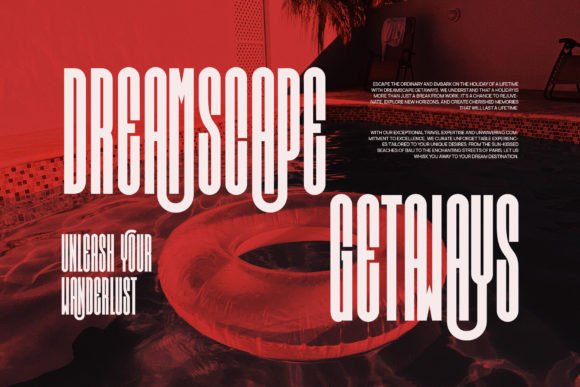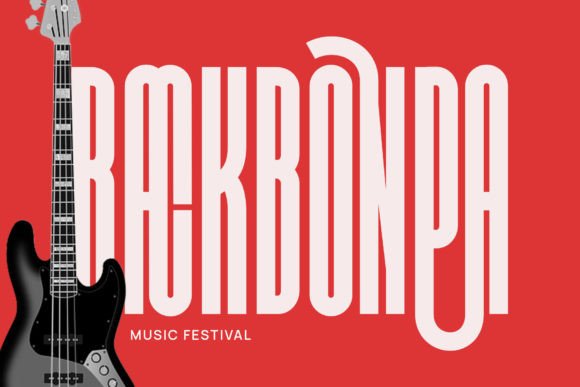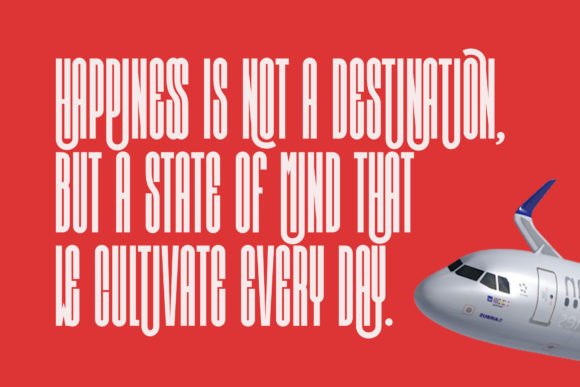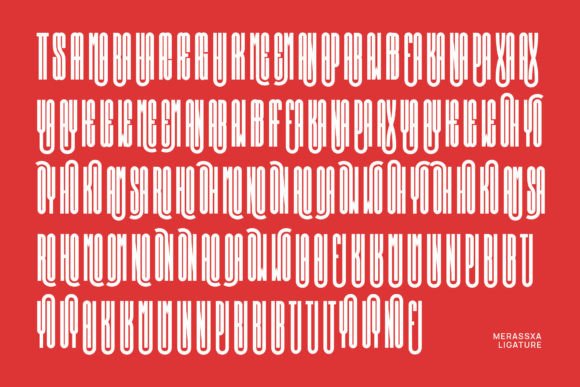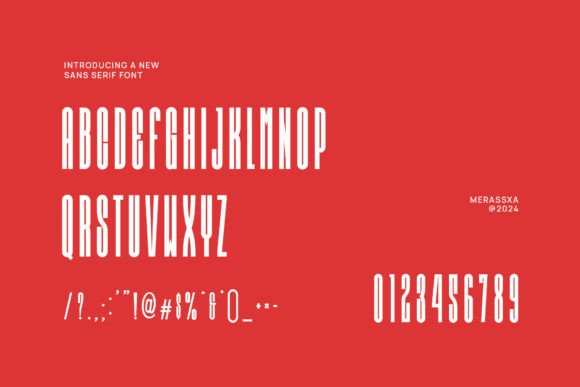
Introduction to Mekursa Font
Mekursa is a contemporary and stylish typeface that embodies modern design trends.
Its clean lines and sleek curves convey sophistication and versatility, making it perfect for branding, headlines, and editorial layouts With a touch of elegance, Mekursa brings a fresh and trendy aesthetic to any project.
Key Features of Mekursa Font
Why Choose Mekursa Font?